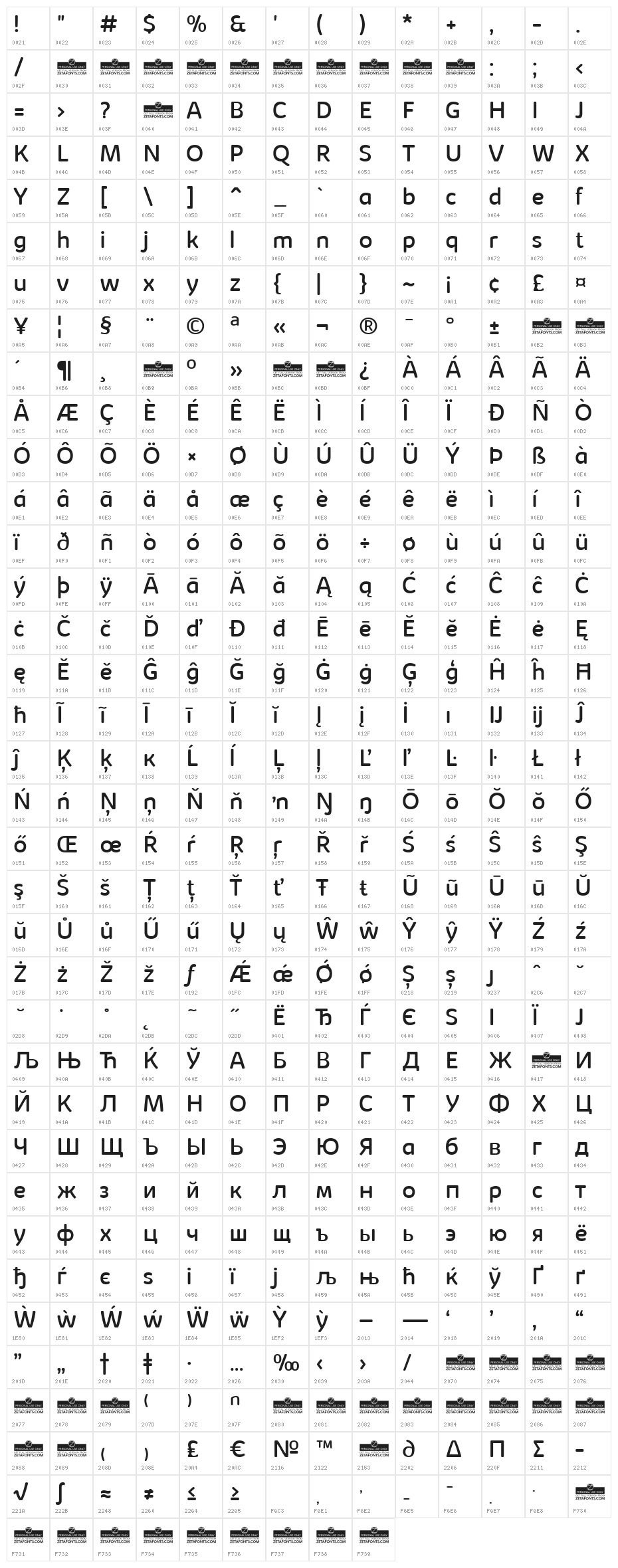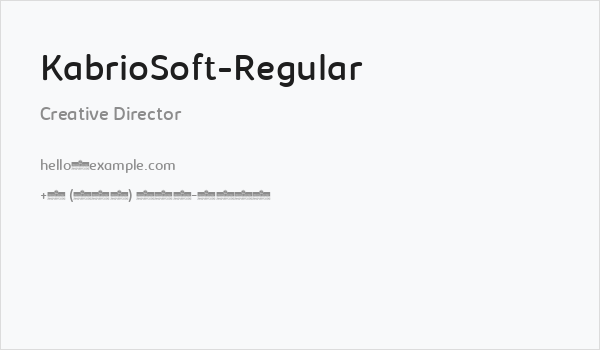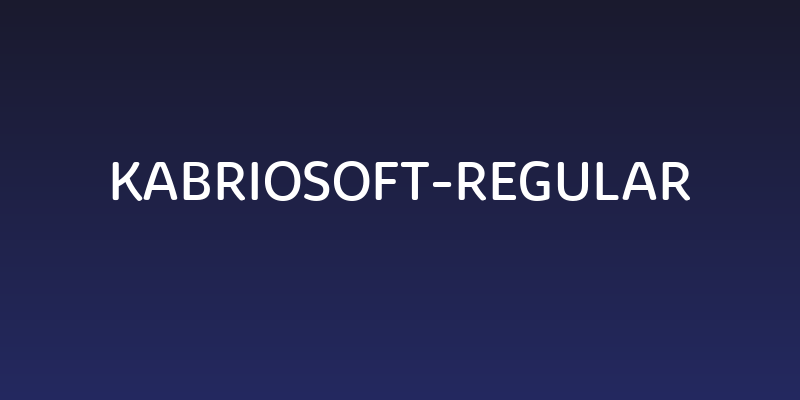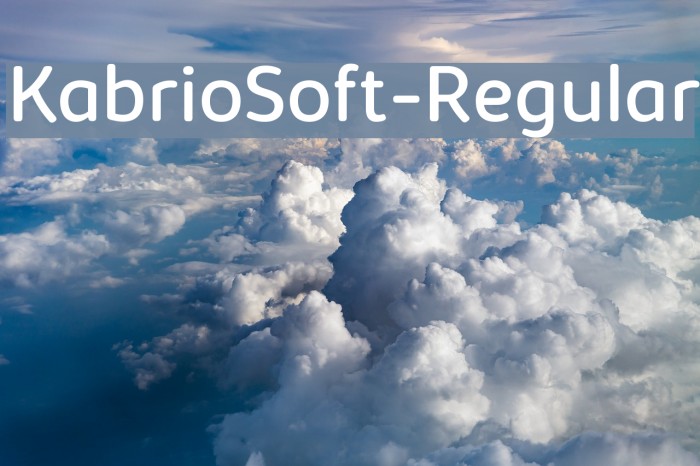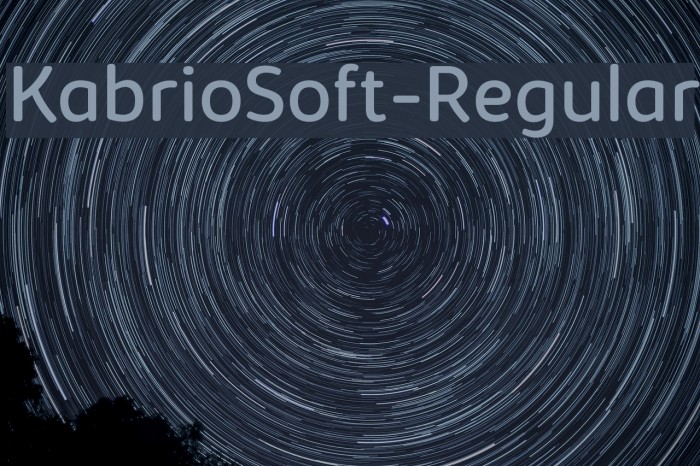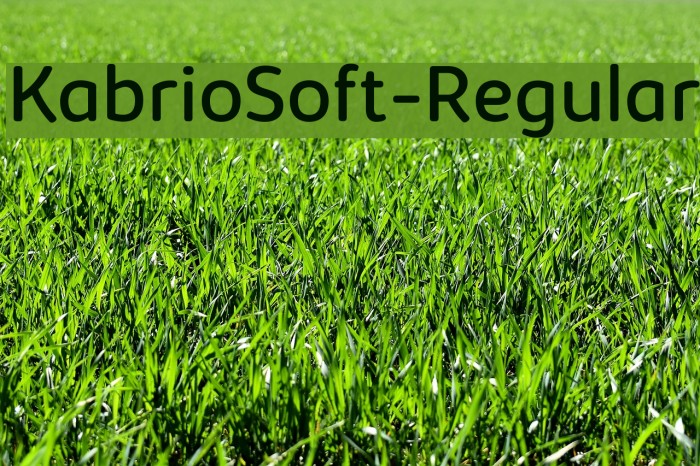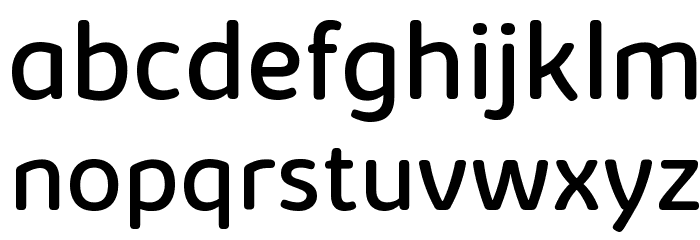
KabrioSoft-Regular Font
KabrioSoft-Regular Description
This font features a clean and modern sans-serif design with rounded edges that give it a friendly and approachable appearance. The uniform stroke width and open counters enhance readability, making it suitable for both digital and print media. The characters are well-proportioned, with a consistent height and width that contribute to its balanced look. The font includes a full set of uppercase and lowercase letters, numerals, and a variety of special characters, ensuring versatility for various design needs.
| Proposed Projects | Ideal for branding, web design, user interfaces, and educational materials. |